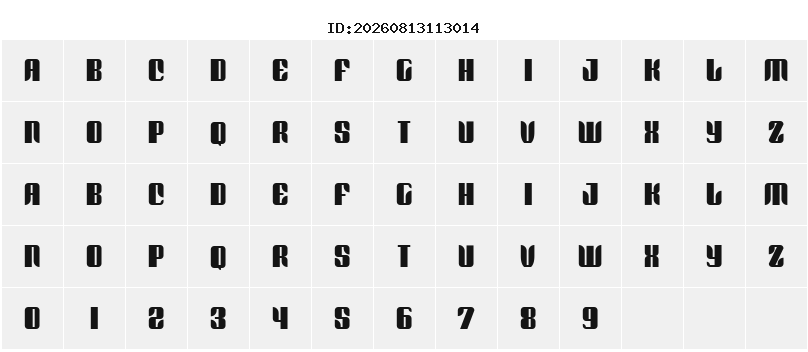
Redford BV Preview
• Font Name: Redford BV
• Full Font Name: Redford BV
About Redford BV.ttf
Redford BV.ttf is a modern, elegant sans-serif font designed for ultimate readability and visual harmony. Perfect for branding, headlines, web design, and print materials.